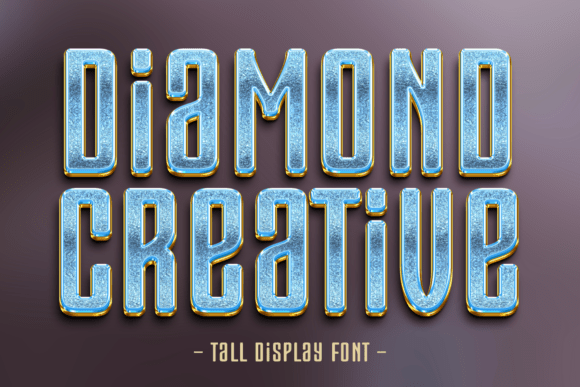
Diamond Creative Font for Bold Branding
As a small business owner, I’ve always believed that the little details make a big difference. One day, while preparing a new line of handmade candles, I realized my labels were looking a bit lackluster. It wasn’t just about the product—it was about how it was presented. That’s when I discovered Diamond Creative, a bold display font that transformed the look of my brand in an instant.
Diamond Creative is a display font that brings energy and personality to any design. Its strong, clean lines and slightly angular edges give it a modern yet approachable feel. Whether I was working on a candle label or a social media post, this font added a sense of confidence and style that made my brand stand out.
Diamond Creative for Candle Labels and Product Packaging
When I first tried Diamond Creative on my candle labels, I was amazed at how it elevated the entire design. The font’s boldness gave the labels a premium feel, making them look more professional and trustworthy. It worked especially well with my minimalist packaging, where the contrast between the simple background and the striking text created a clean, eye-catching effect.
For small labels, I found that using a slightly smaller size helped maintain readability without losing the font’s impact. On printed packaging, I paired it with a soft sans serif for the product description, which balanced the bold headline and made the information easier to read.
Diamond Creative for Social Media Graphics and Online Shop Banners
Another area where Diamond Creative has been a game-changer is in my online shop. I use it for banners, product titles, and promotional graphics. The font’s strong presence makes it perfect for headlines that need to grab attention quickly—especially on mobile screens where space is limited.
I also love how it works in Instagram posts. Whether I’m highlighting a new product or creating a seasonal promotion, the font adds a touch of sophistication that feels both modern and inviting. It pairs well with bright colors and bold backgrounds, making it ideal for eye-catching social media content.
Diamond Creative for Menus and Business Cards
Running a small café means designing menus and business cards regularly. Before using Diamond Creative, my menus felt a bit generic. Now, with the font as the headline, they have a fresh, stylish look that reflects the quality of the coffee I serve.
On business cards, the font gives a strong first impression. It’s not too flashy, but it’s definitely noticeable. I often pair it with a simple serif font for the contact information, which creates a nice contrast and keeps the design from feeling too overwhelming.
Diamond Creative for Brand Identity and Logo Design
One of the most valuable uses of Diamond Creative has been in building my brand identity. I used it for my logo, which appears on everything from packaging to social media profiles. The font’s boldness helps create a consistent visual language across all platforms, making my brand more recognizable.
It also works well as a decorative accent in designs where I want to add a touch of flair without overpowering the message. For example, I use it on stickers and signage to draw attention to special offers or seasonal items.
Diamond Creative for Magazine Covers and Poster Designs
Even though I’m not a publisher, I’ve started experimenting with magazine-style layouts for my blog and social media. Diamond Creative has been a go-to font for headlines and section titles. Its clean, structured look gives the designs a polished feel that feels professional and engaging.
For posters, I use it for event announcements and promotions. The font’s boldness makes it easy to read from a distance, which is essential for public displays. It also looks great in large sizes, adding a sense of drama and importance to the message.
Diamond Creative for Craft Projects and Handmade Products
As a crafter, I often create custom labels for my handmade products. Diamond Creative has become my favorite font for these because it adds a level of detail and professionalism that makes the products feel more premium. Whether it’s a soap label, a jewelry tag, or a gift wrap sticker, the font gives each item a unique, high-quality look.
I also use it in digital templates for other crafters. It’s a great way to add a stylish touch without needing advanced design skills. The font’s versatility makes it a valuable addition to any creative toolkit.
Diamond Creative for Fashion and Editorial Design
Even outside of my own business, I’ve seen how Diamond Creative can be used in fashion and editorial projects. Its bold, modern look is perfect for headings, captions, and branding elements in magazines, lookbooks, and fashion collabs. It adds a sense of energy and creativity that aligns well with the industry’s aesthetic.
For editorial design, I find that pairing it with a classic serif font creates a timeless, elegant look. This combination works well for print publications, where clarity and visual appeal are key.
Choosing the right font can be a powerful tool for small businesses looking to build a strong brand presence. Diamond Creative has been a game-changer for me, helping to create a cohesive, professional look across all my materials. Whether you're designing labels, social media graphics, or logos, this font offers a versatile and stylish solution that can elevate your brand in a meaningful way.